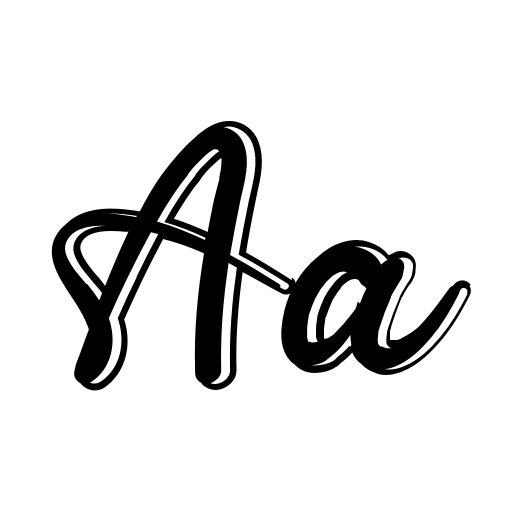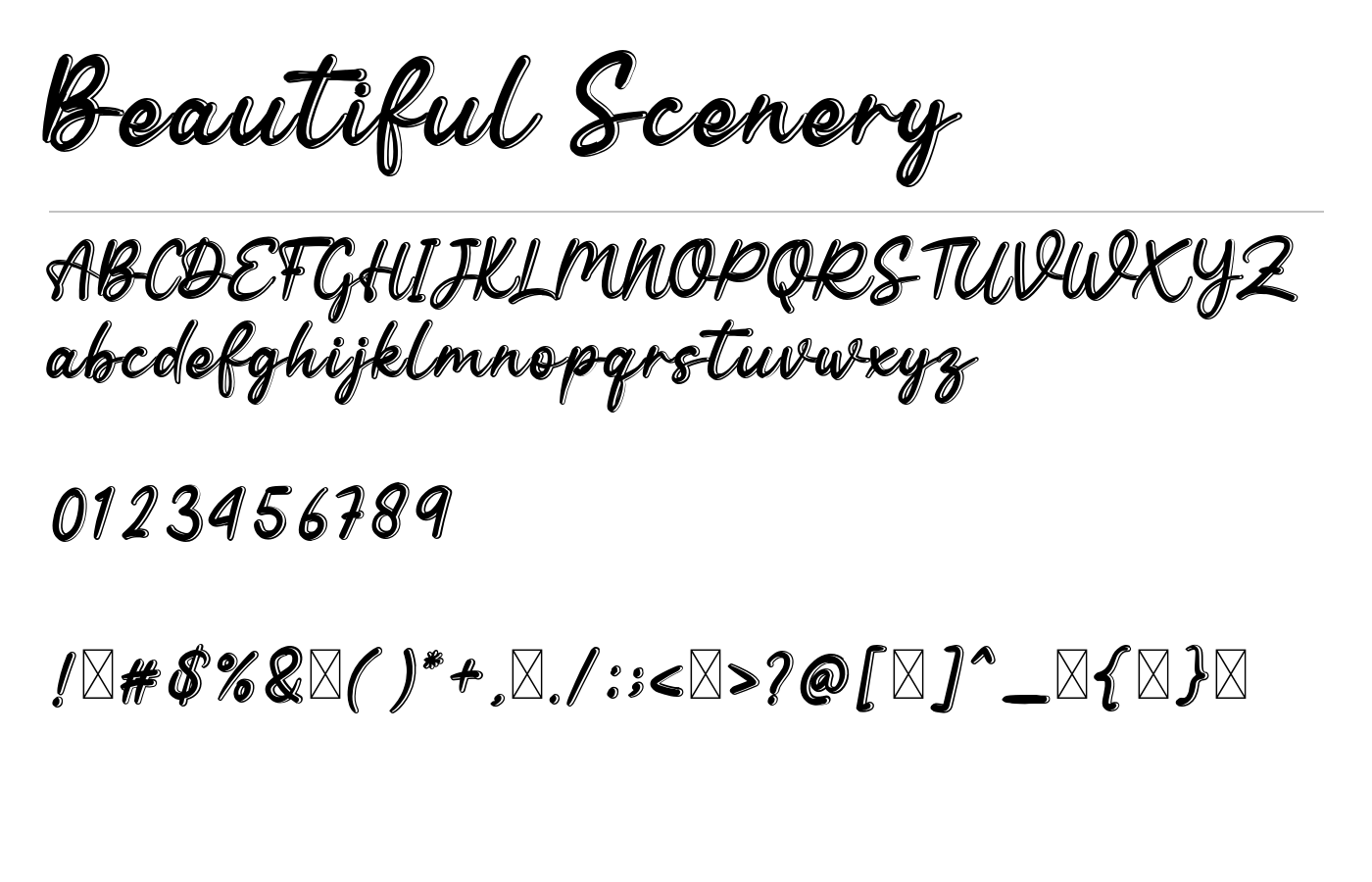
Beautiful Scenery Font is a lively and elegant script typeface with a handwritten feel, featuring smooth, flowing strokes and moderate contrast that creates a friendly yet sophisticated look. Its slightly condensed letterforms and natural curves make it ideal for adding a personal touch to branding, invitations, and creative headlines. This font works well for designs that want to convey warmth and charm while maintaining readability and style.
Beautiful Scenery Font
About Beautiful Scenery Font